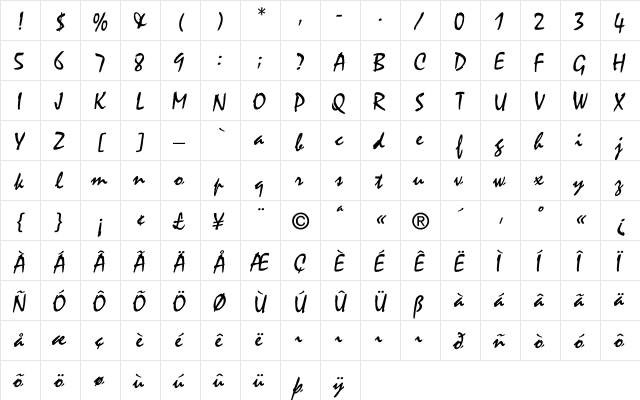
Satrict Regular
Design Context for Satrict Typeface
Satrict takes a measured approach to typography — its balanced proportions and neutral character make it a reliable workhorse for both digital and print work.